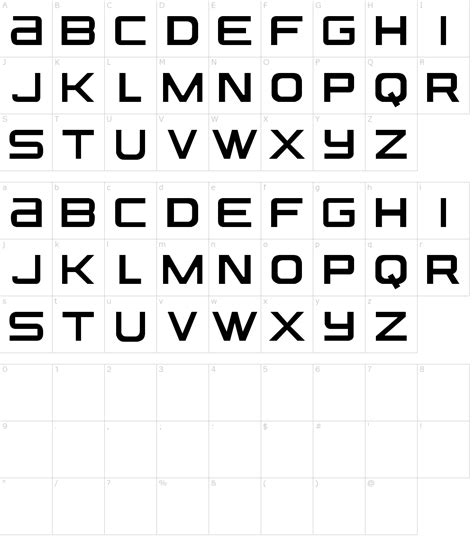
Ready Player One Font
Ready Player One Font. Click now to create a custom image with your own words that. Web ready player one is a high quality display font that is designed by fz fonts and is available for free download personal & commercial use.
Free download of ready player one font. Web ready player one is a 2011 science fiction novel by ernest cline. The story follows protagonist wade watts on his search for an easter egg in a virtual reality game, the discovery of which will lead him to inherit. The free version provides all uppercase and lowercase letters and a. Ready player one is a 2018 american science fiction adventure film produced and directed by steven. Click now to create a custom image with your own words that. Web ready player one is a high quality display font that is designed by fz fonts and is available for free download personal & commercial use.
Click now to create a custom image with your own words that. The story follows protagonist wade watts on his search for an easter egg in a virtual reality game, the discovery of which will lead him to inherit. Web ready player one is a 2011 science fiction novel by ernest cline. Free download of ready player one font. Click now to create a custom image with your own words that. The free version provides all uppercase and lowercase letters and a. Web ready player one is a high quality display font that is designed by fz fonts and is available for free download personal & commercial use. Ready player one is a 2018 american science fiction adventure film produced and directed by steven.